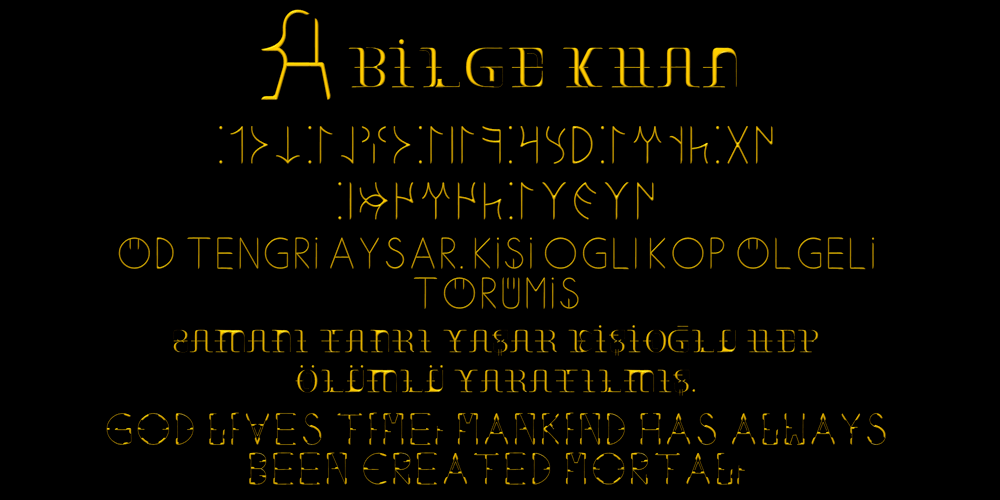
Ongunkan Old Turkic
Ongunkan Old Turkic font
Ongunkan Old Turkic Font Family was designed by Osman Nuri ALKAN and published by Runic World Tamgacı. Ongunkan Old Turkic contains 1 styles and family package options. Orkhon inscriptions (Orkhon inscriptions, Khöshöö Tsaidam monuments (also known as Khoshoo Tsaidam, Koshu-Tsaidam or Höshöö Caidam) or Kul Tigin steles (simplified Chinese: 阙特勤碑; traditional Chinese: 闕特勤碑; pinyin: Què tèqín bēi )) They are two monumental installations written by the Göktürks in the Old Turkic alphabet in the Orkhon Valley in Mongolia at the beginning of the 8th century. They were erected in honor of two Turkish princes Kül Tigin and his brother Bilge Kagan.Both Chinese and Old Turkish inscriptions describe the legendary origins of the Turks, the golden age of their history, their subjugation by the Chinese and their liberation by İlteriş Kağan. According to one source, the inscriptions contain “rhythmic and parallel passages” similar to those of epics. In the Old Turkish Alphabet, 38 letters are accepted academically and this pattern is generally used in the books. But there are more than 38 letters in this alphabet, these special letters are included in this font.